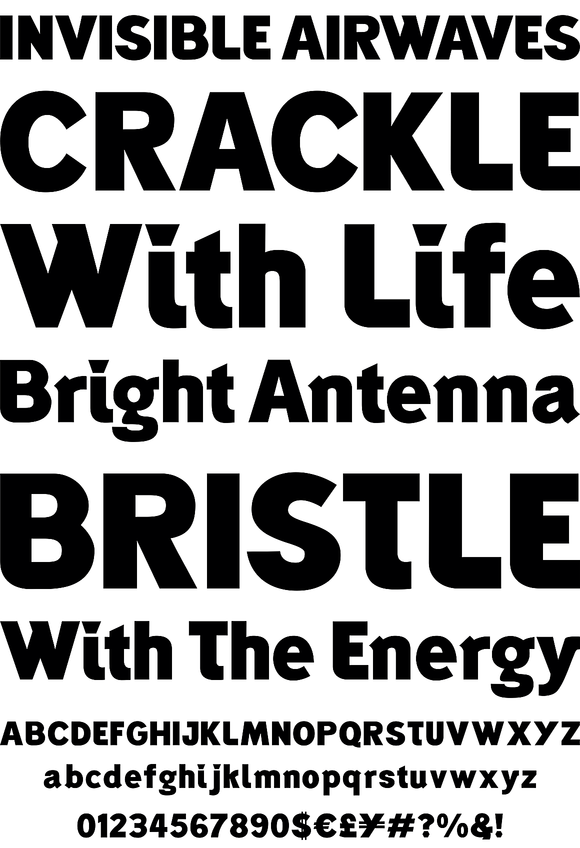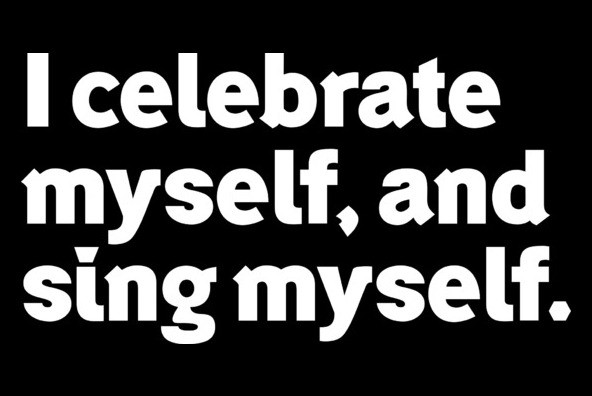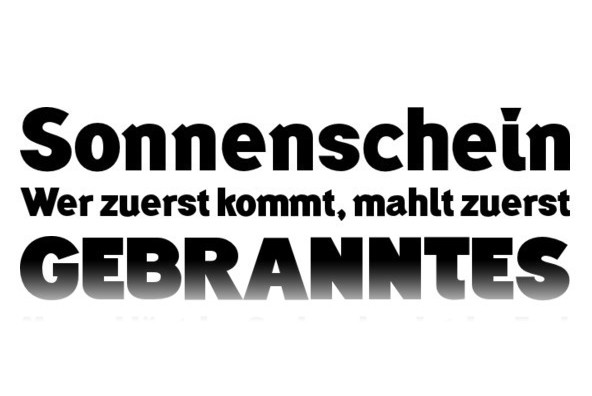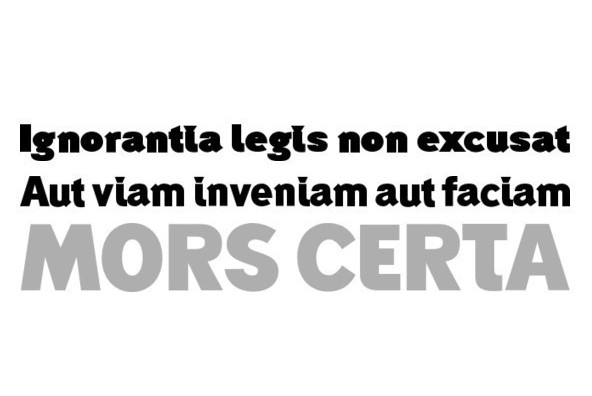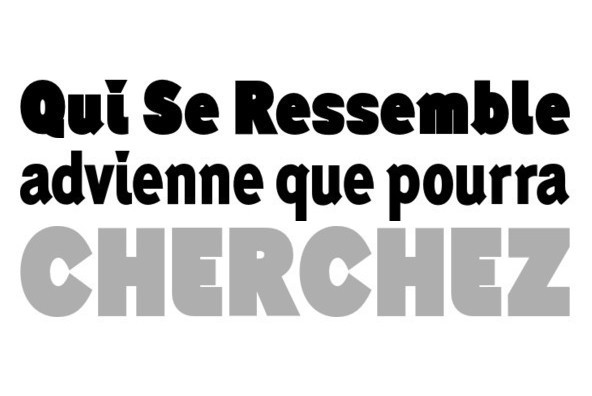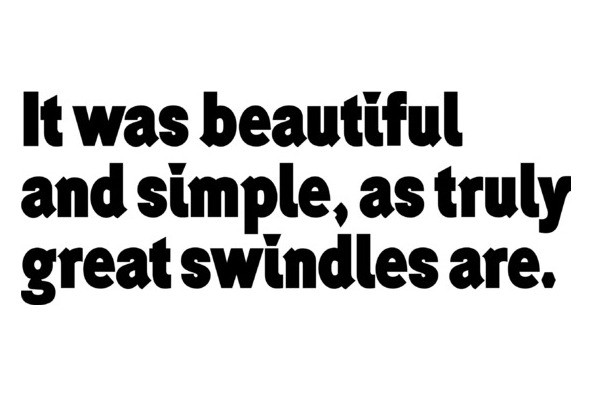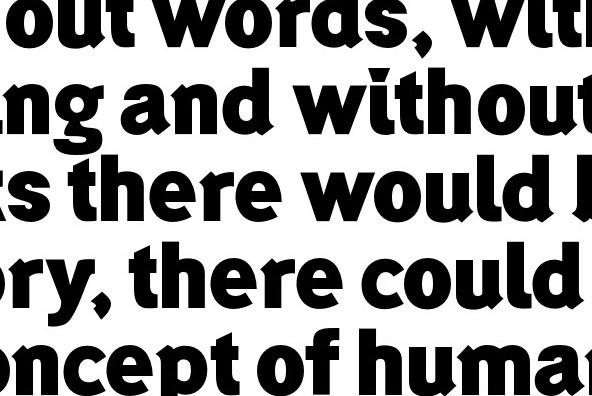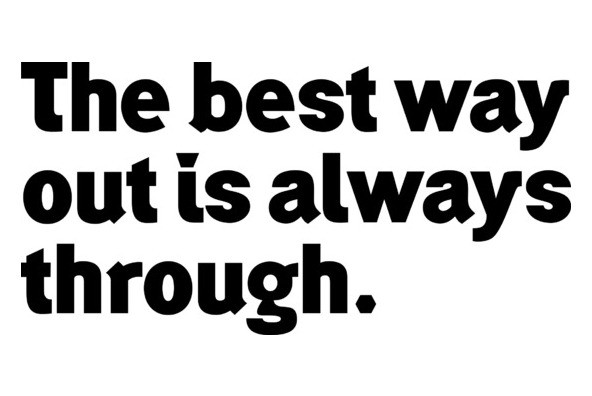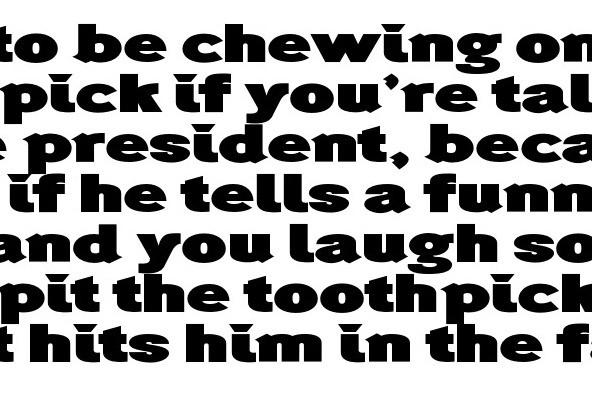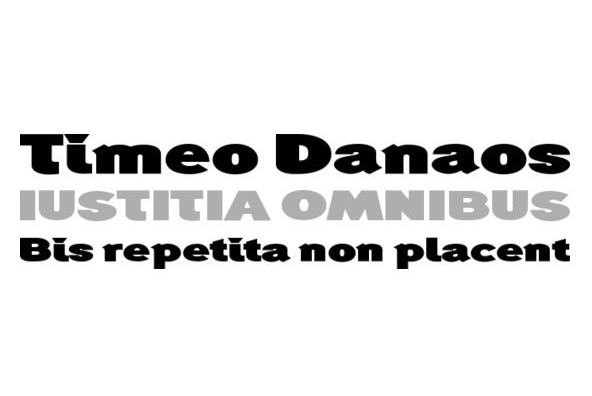
Generation Gothic, has already proved to be very popular with leading magazines including Later, Computer Arts, Ultimate Golf and Spark Magazine.
Generation Gothic, has already proved to be very popular with leading magazines including Later, Computer Arts, Ultimate Golf and Spark Magazine. This collection introduces complementary Generation Headlines which seek attention and create impact; Generation Uncial (which isn't just for mystics and film buffs) and lends itself to a contemporary extended san serif family - Generation Gothic Condensed is a typeface in its own right, ideal for narrow columns and is available in 10 weights.